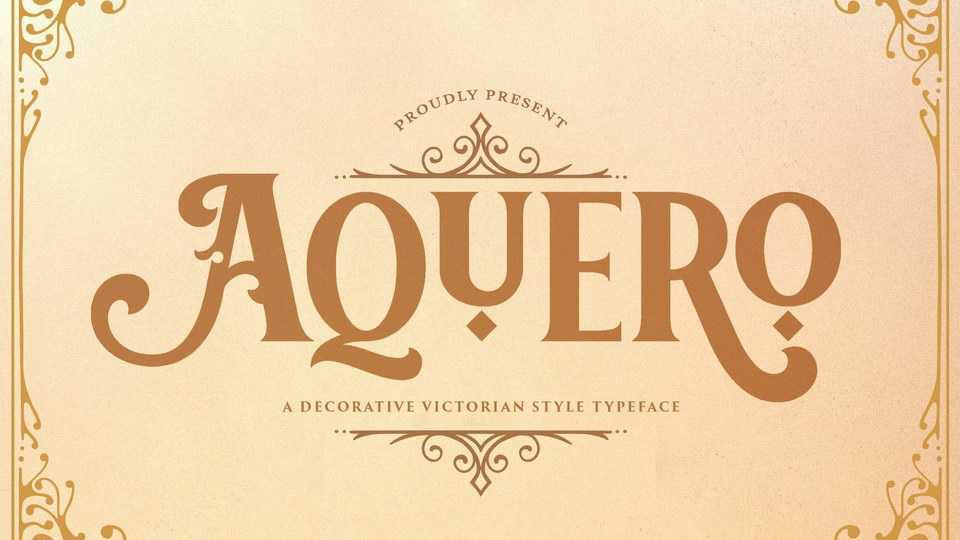
Download Aquero font, an elegant vintage typeface with Victorian style. Inspired by vintage tattoo design, Aquero is an absolutely stunning and eye-catching typeface.